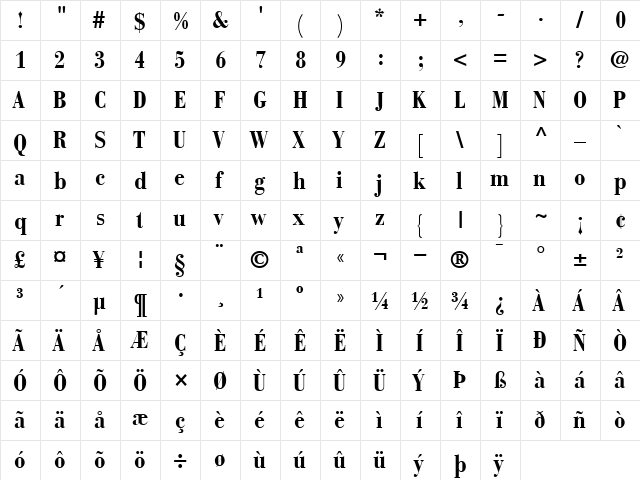
BauerBodoni BoldCond
Design Context for BauerBodoni Typeface
BauerBodoni is a composed and adaptable typeface that performs quietly and consistently across a wide range of design contexts. The heavy weight commands attention and anchors typographic hierarchies. The condensed width makes it efficient for tight spaces without sacrificing legibility.